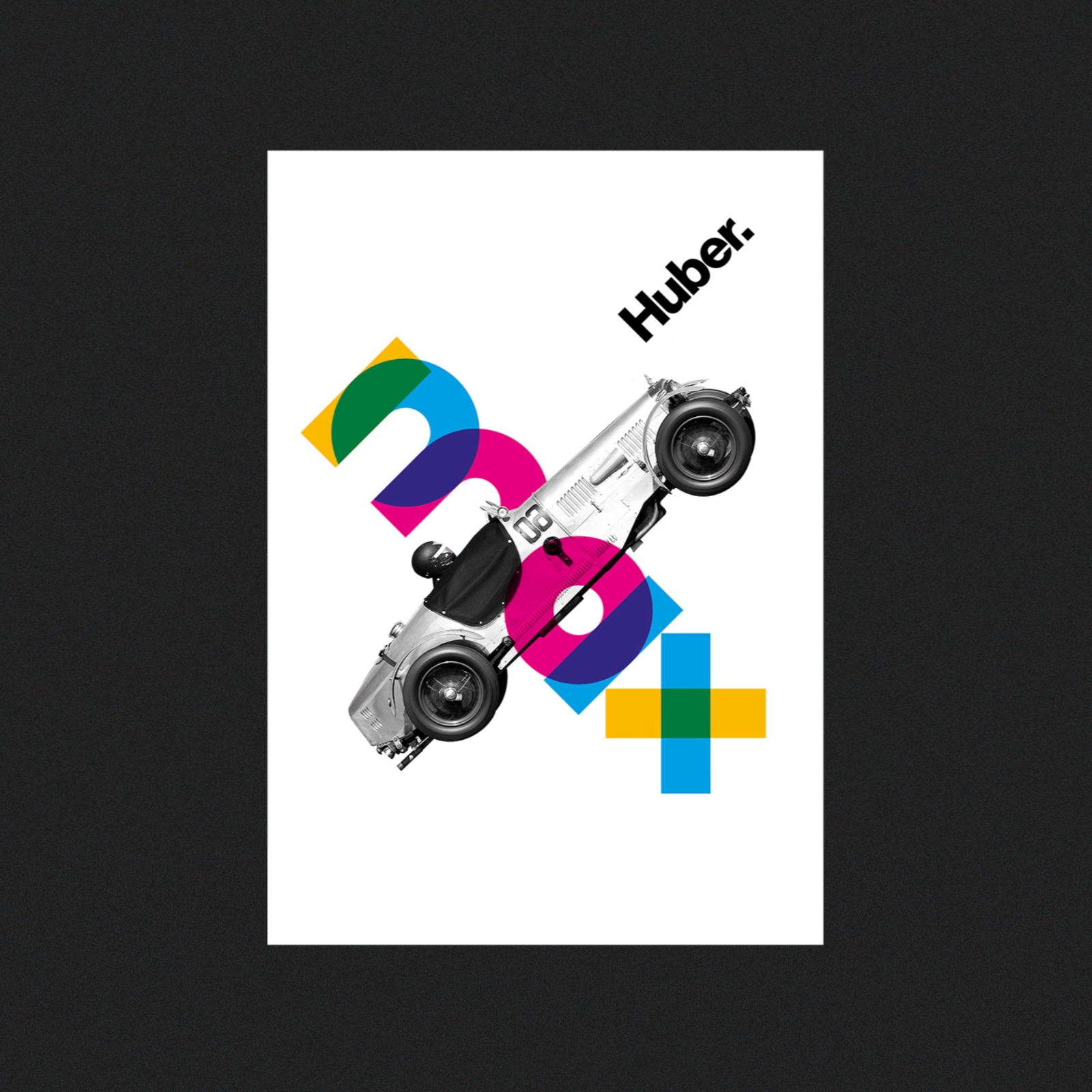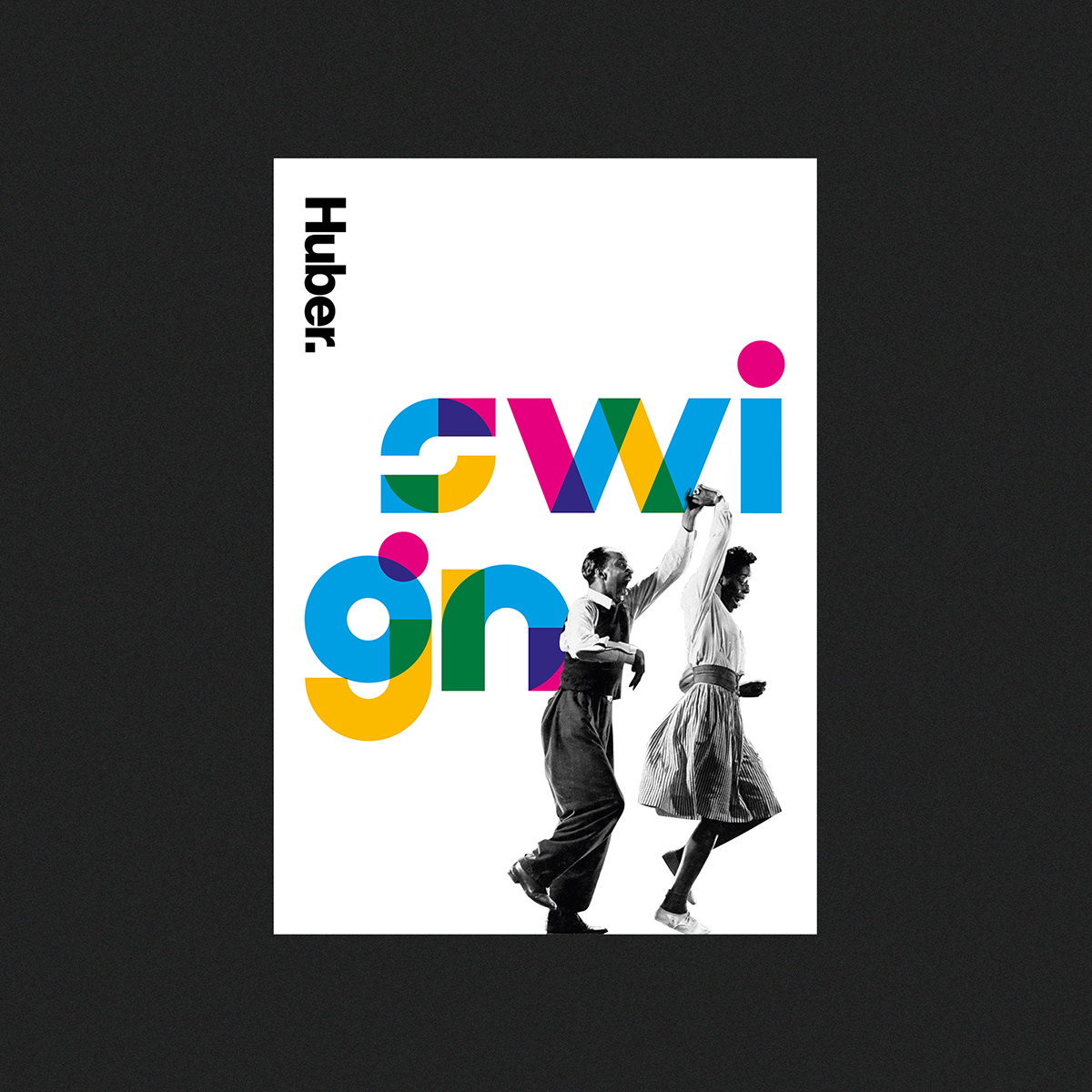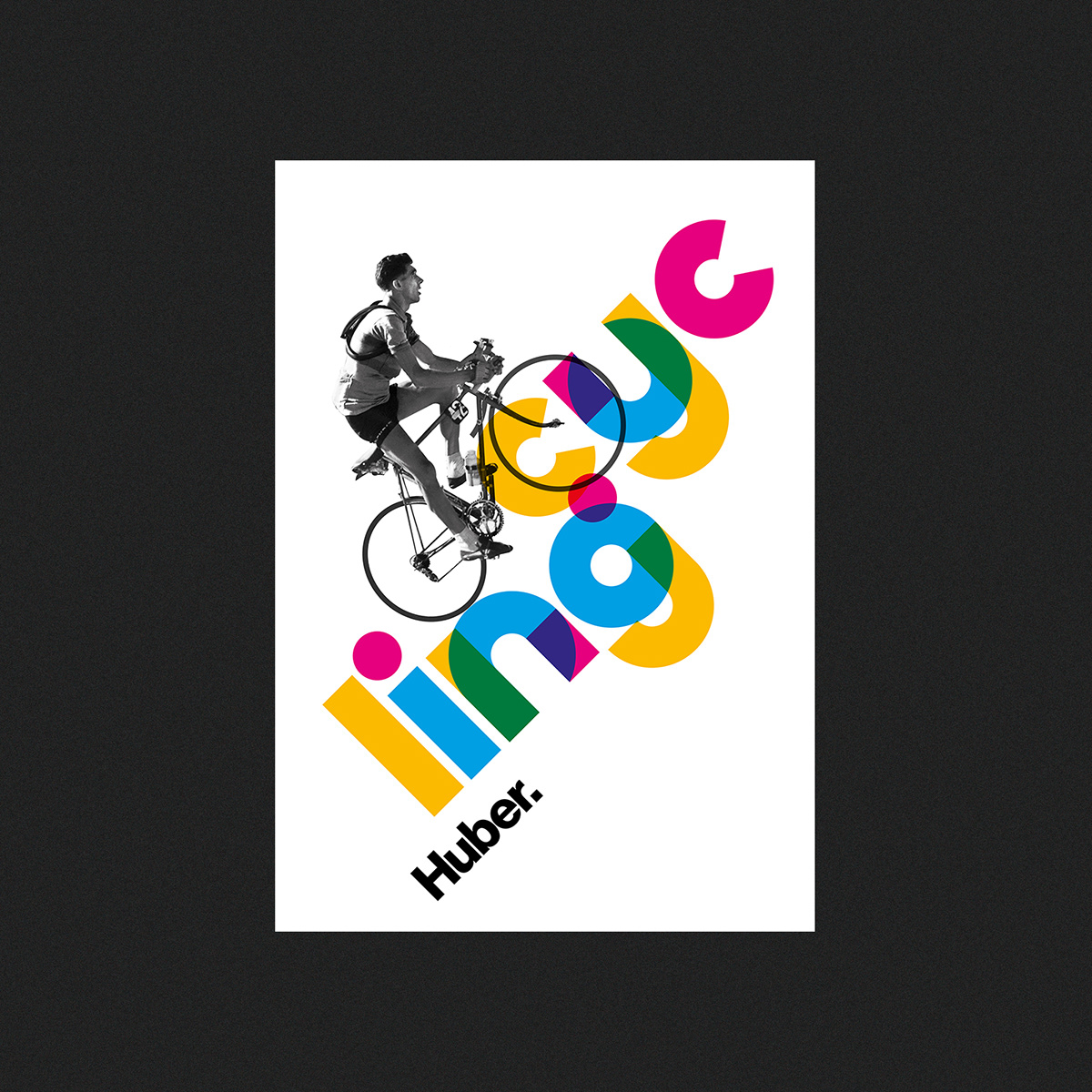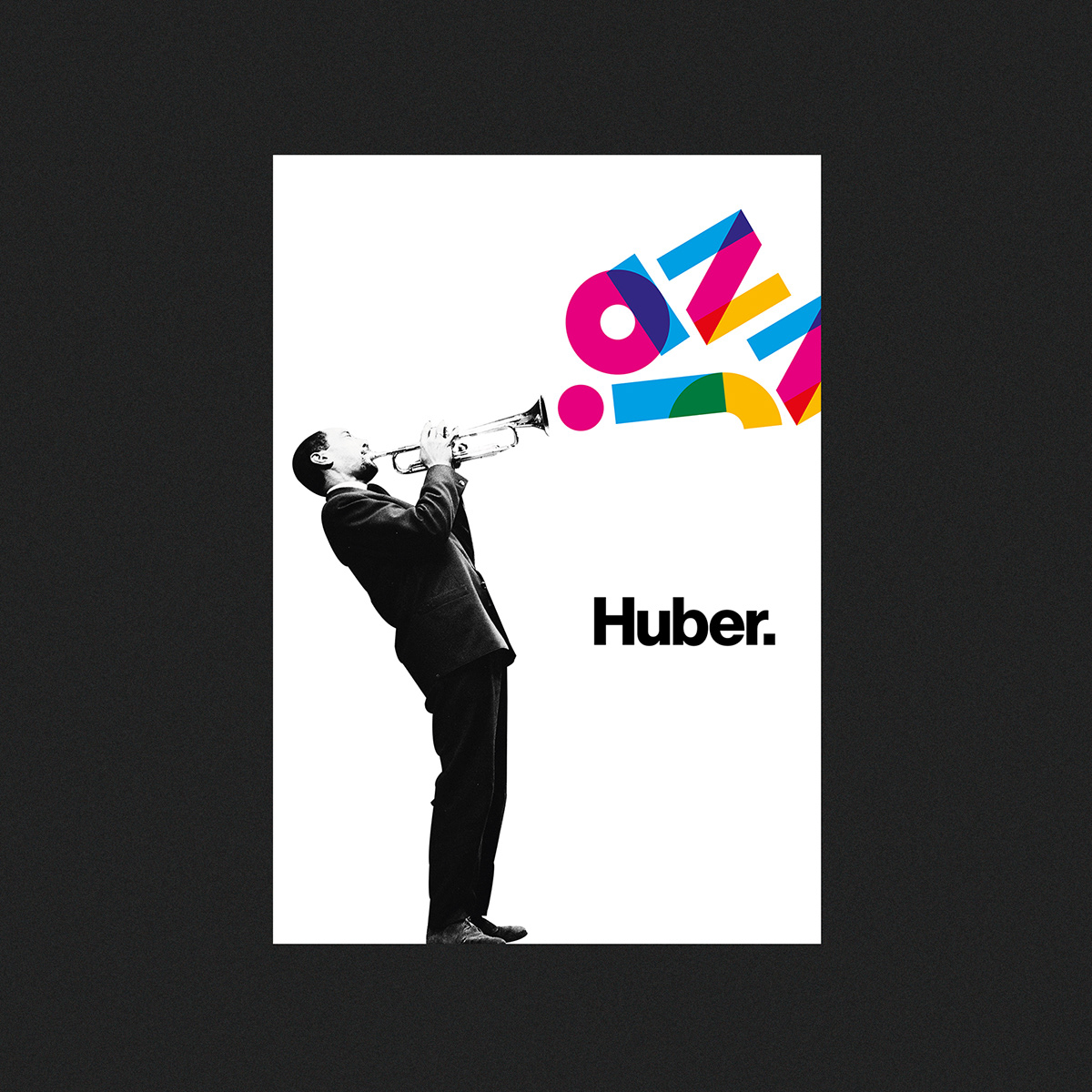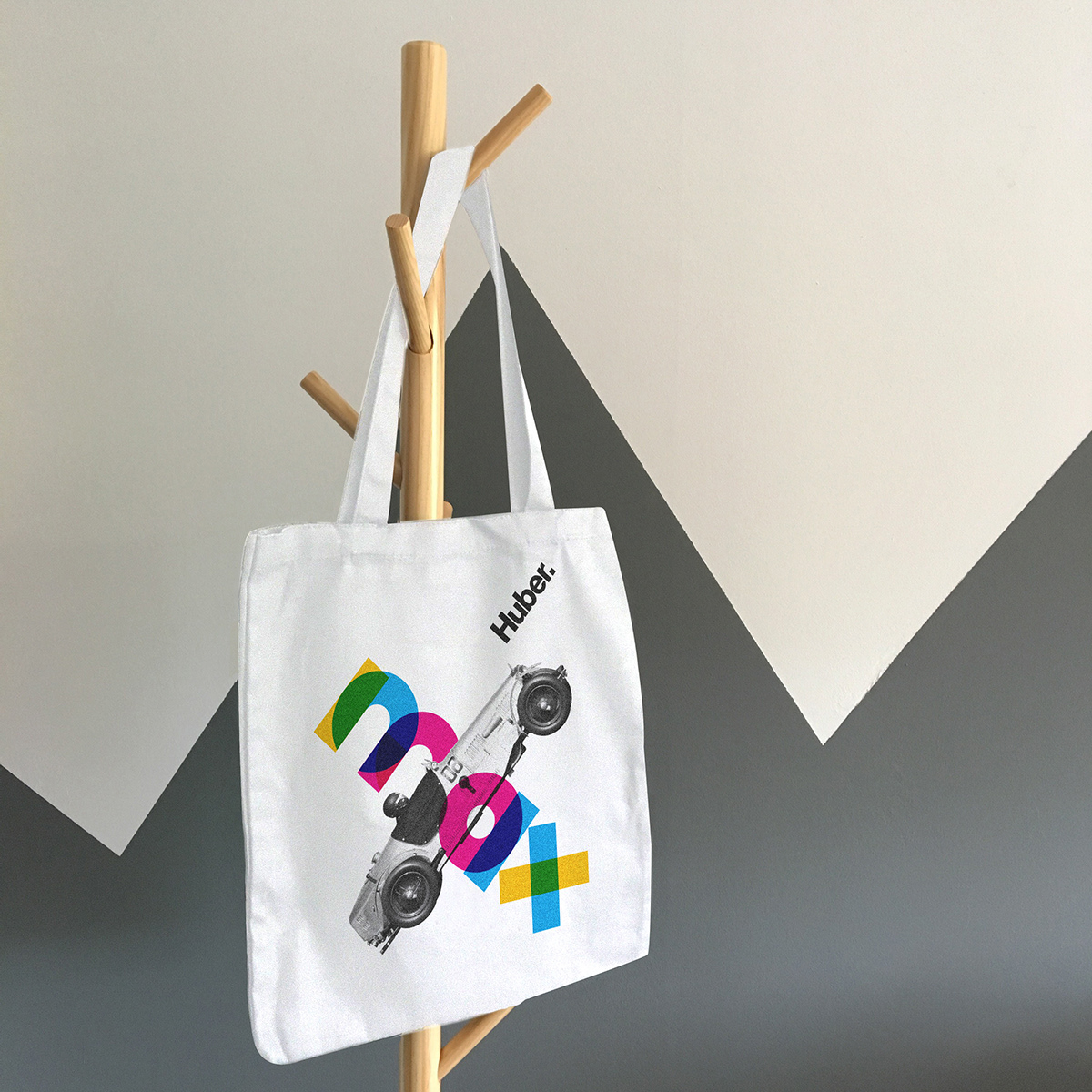
Studio K95 shared a graphic design and typography project as a tribute to Max Huber. On June 5th, 2019 was the centenary of the birth of the Swiss graphic designer and artist Max Huber. To pay homage to his figure we have designed a series poster and an alphabet bearing his name "Huber Alphabet", both inspired by his graphic and artistic work.